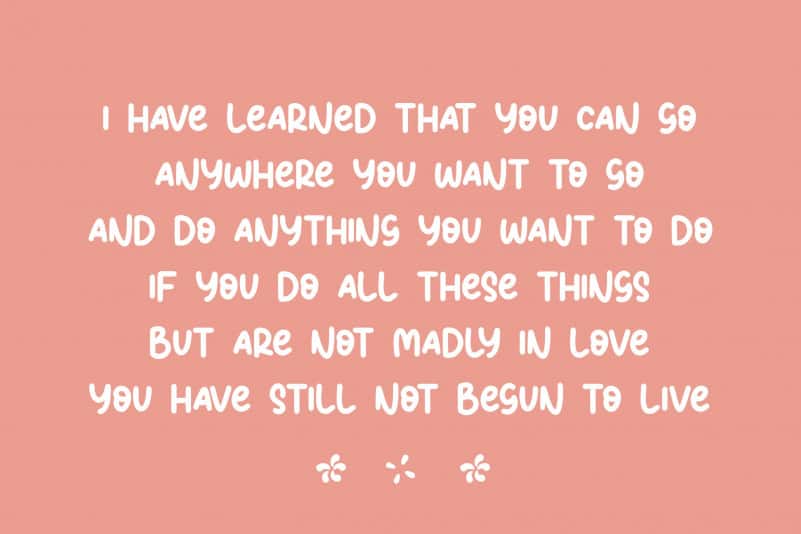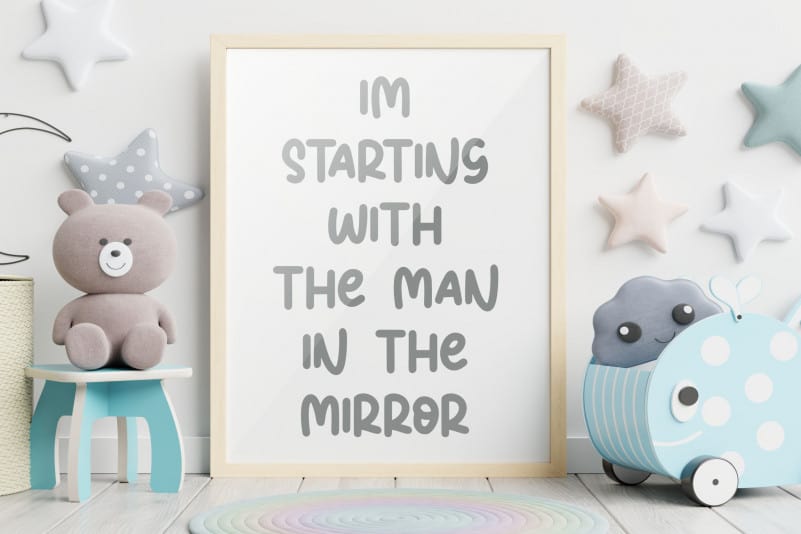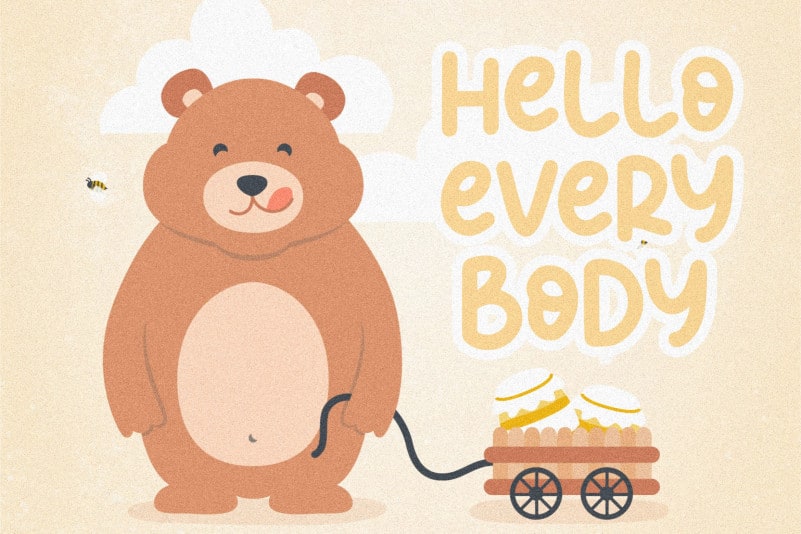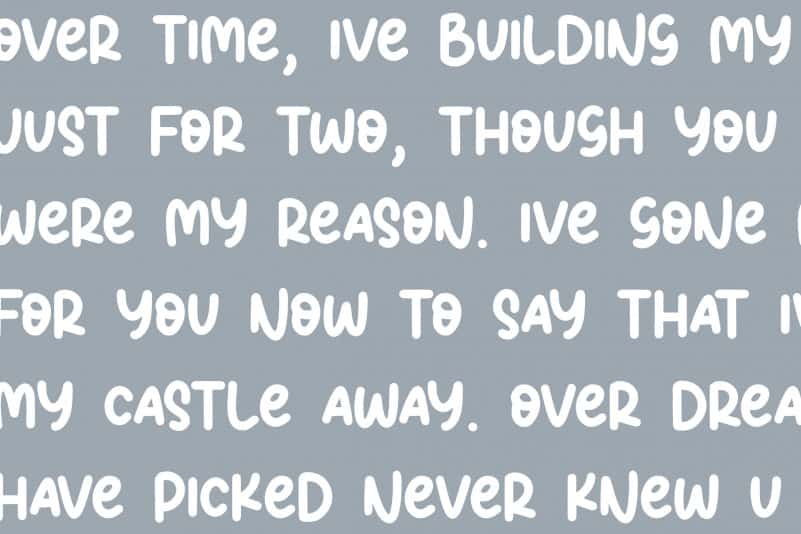
Shadow Beamer Bold Brushed Font
Proudly Present, Shadow Beamer Bold Brushed Font.
Shadow Beamer is a Bold Brushed Font.
Shadow Beamer is perfect for product packaging, branding project, megazine, social media, wedding, or just used to express words above the background.